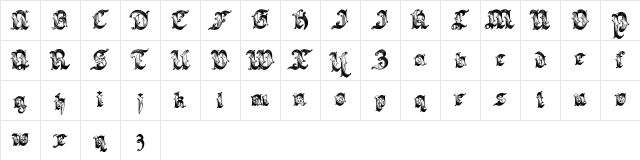
Complete Saraband Lettering Regular glyph index. Displaying only characters natively supported by Saraband Lettering Regular font.
Saraband Lettering is a composed and adaptable typeface that performs quietly and consistently across a wide range of design contexts.